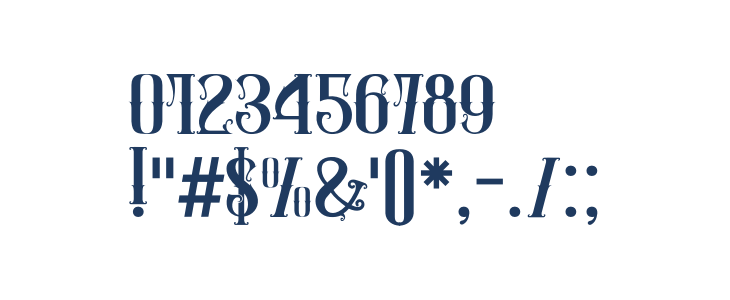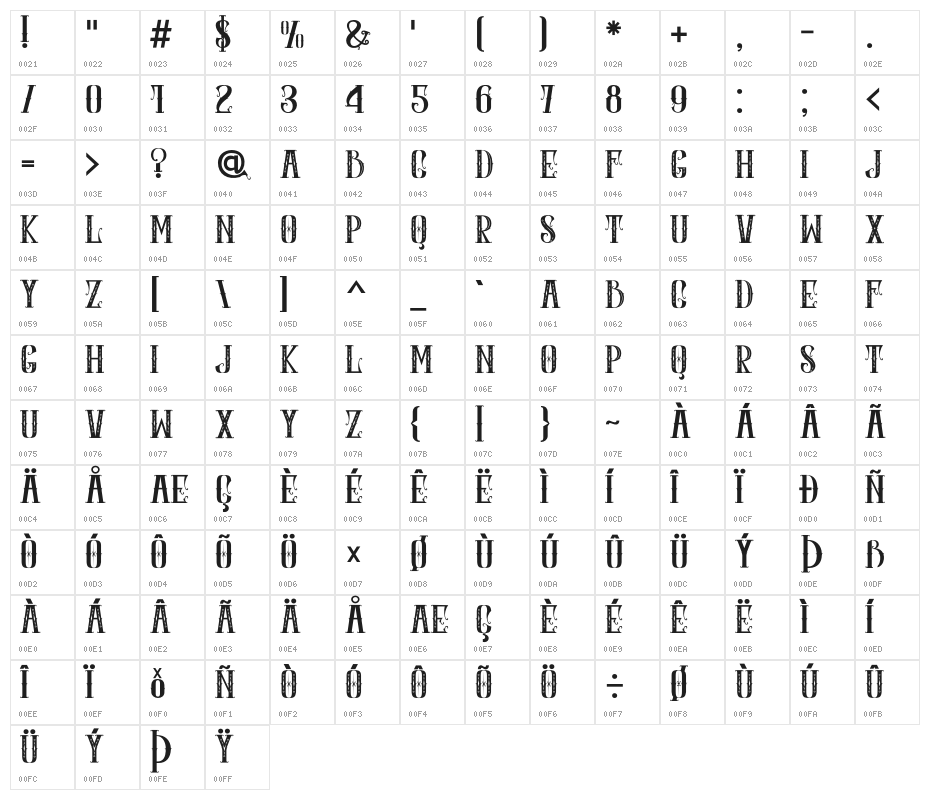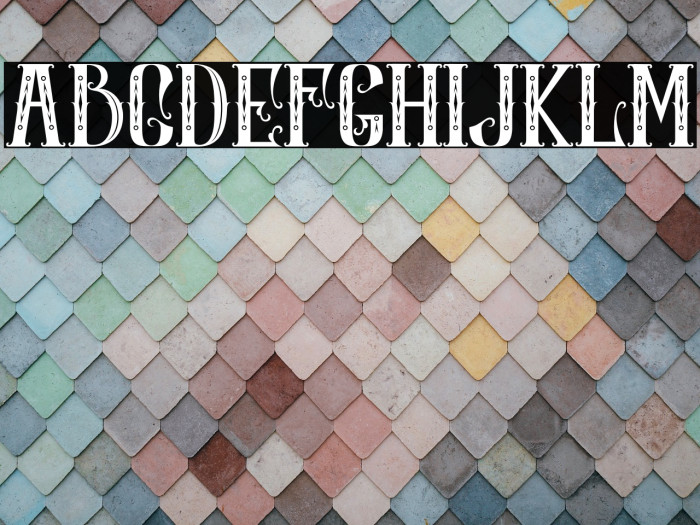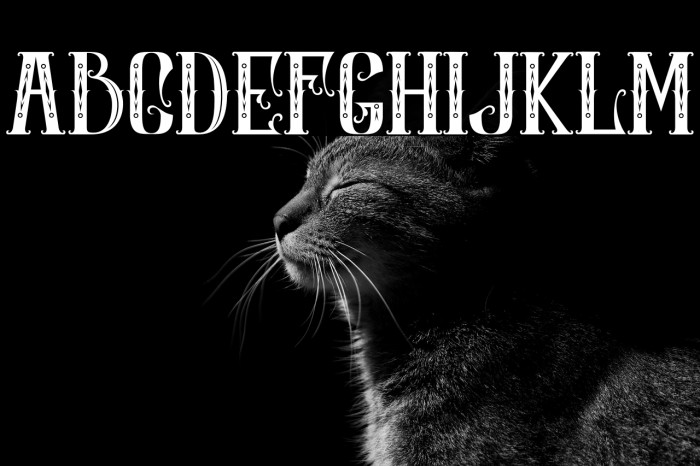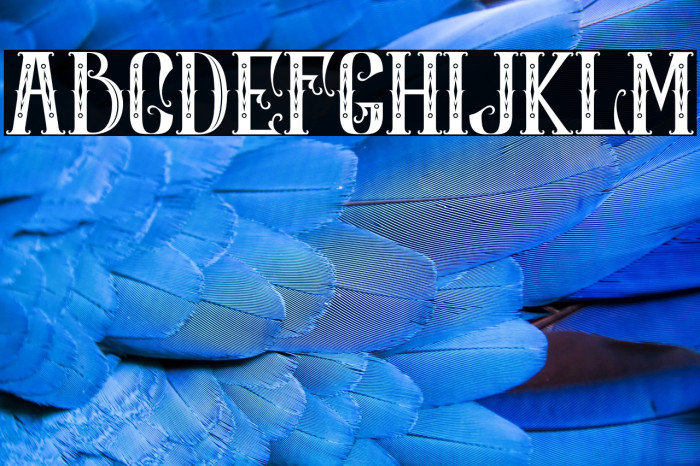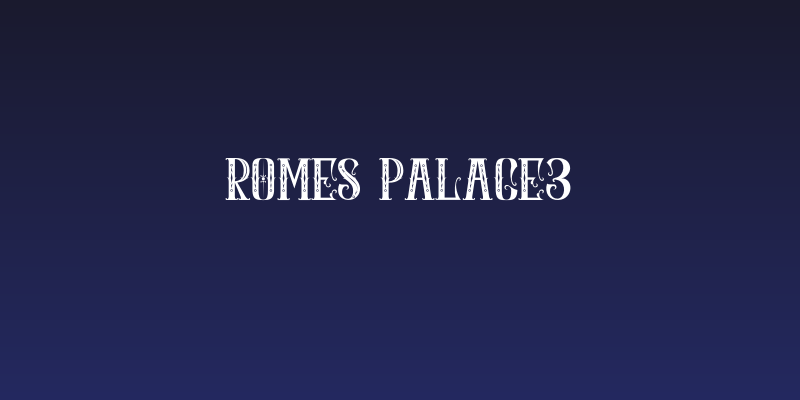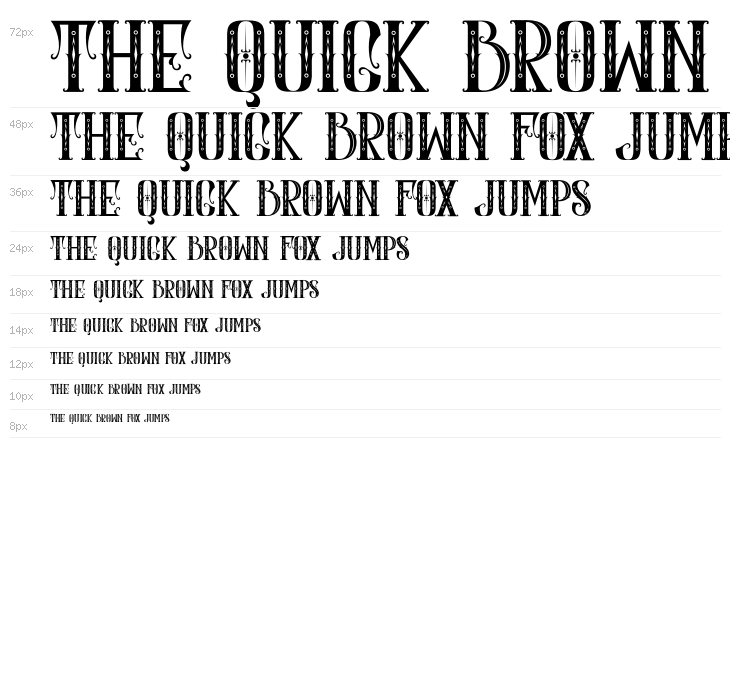
ROMES PALACE3 Font
This font features an ornate and decorative style, characterized by intricate details and embellishments on each letter. The uppercase letters are bold and striking, with flourishes that add a touch of elegance and sophistication. The numbers and special characters maintain this decorative theme, ensuring consistency across all glyphs. The font's design is reminiscent of vintage or Victorian aesthetics, making it suitable for projects that require a classic and ornate look. The high contrast in stroke thickness enhances its readability while maintaining its decorative appeal.
Overall StyleVintage
Use CaseHeadlines, Logos, Decorative text
Proposed ProjectsIdeal for wedding invitations, vintage-themed posters, branding for luxury products, and decorative signage.